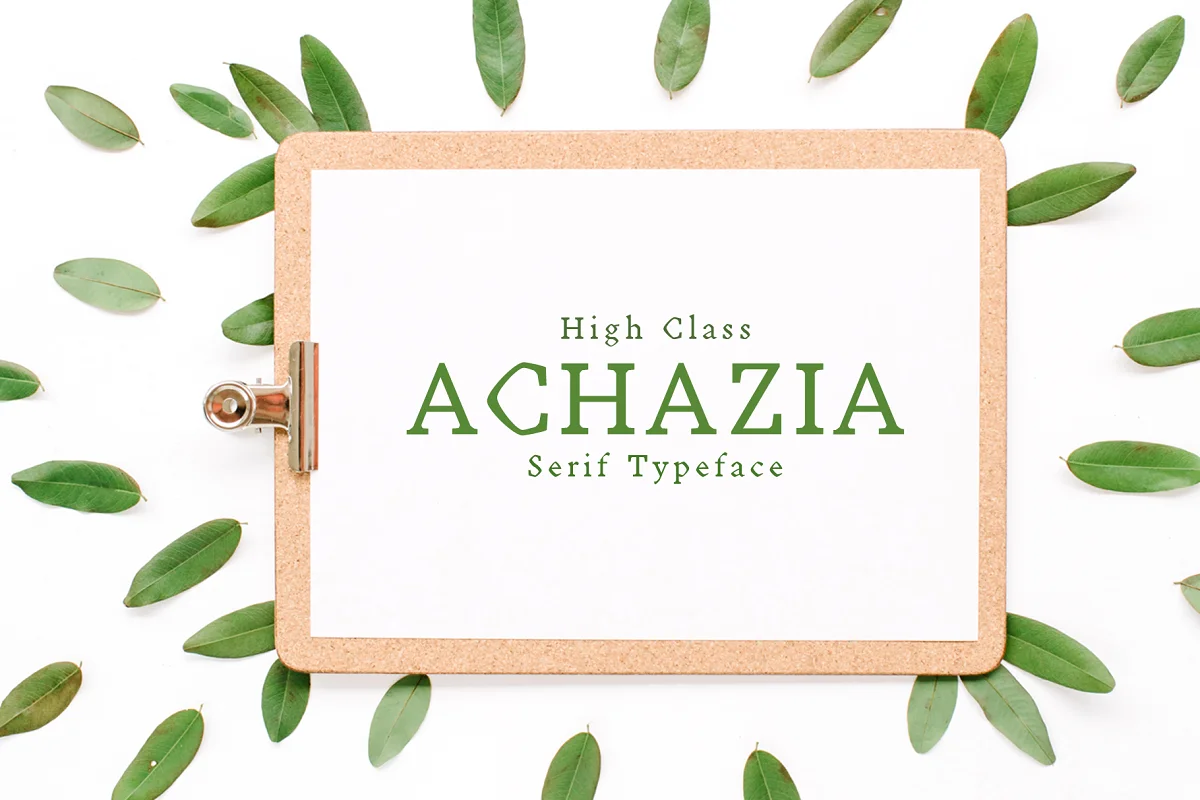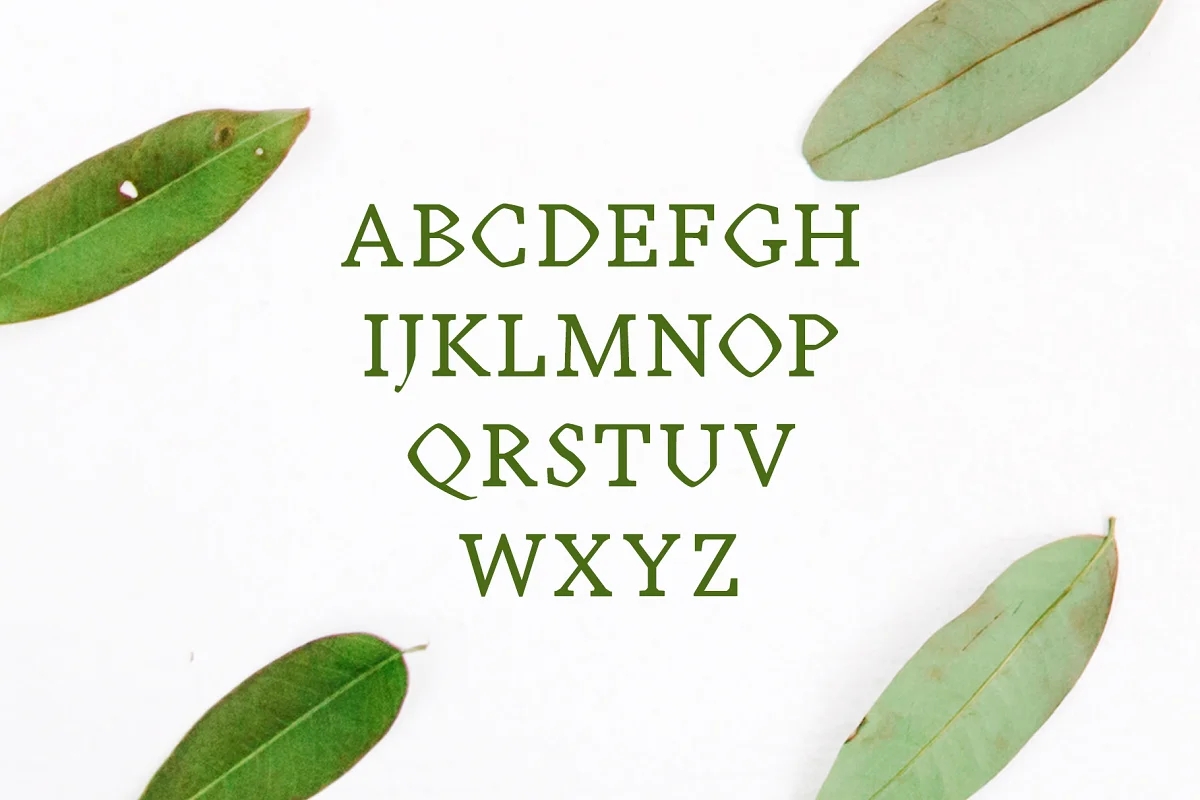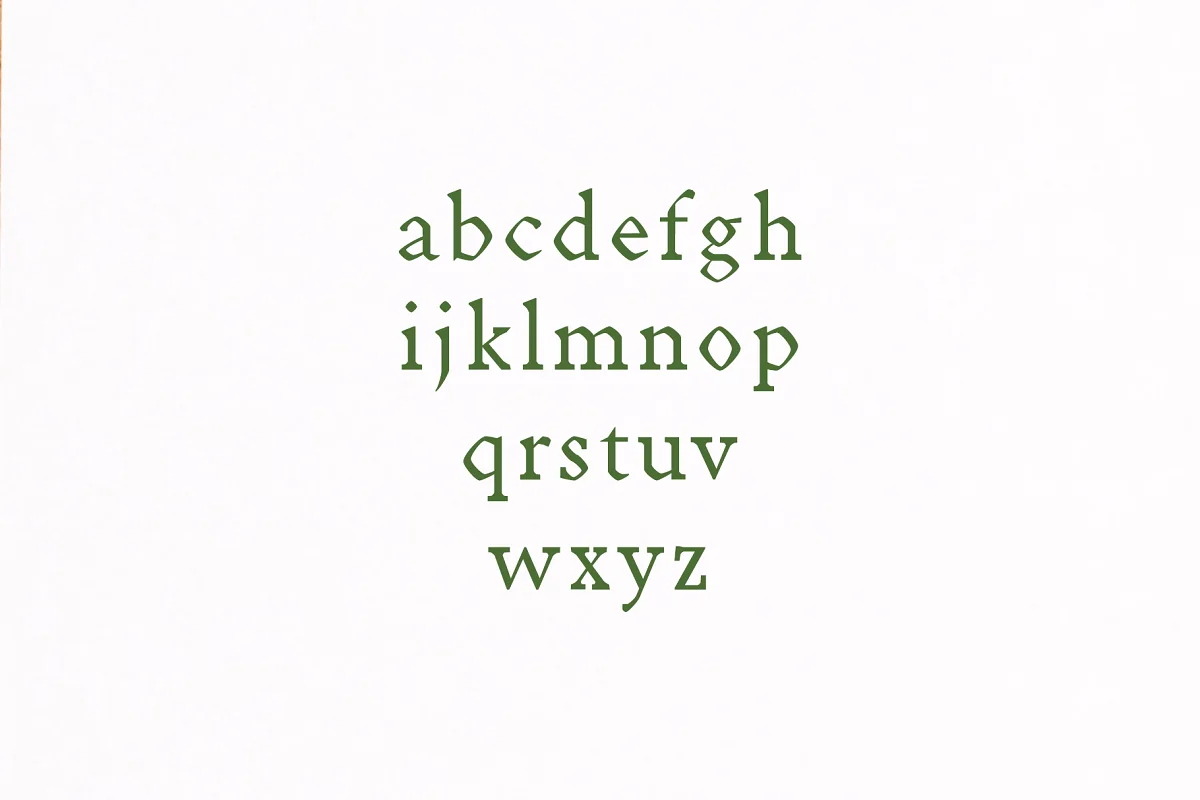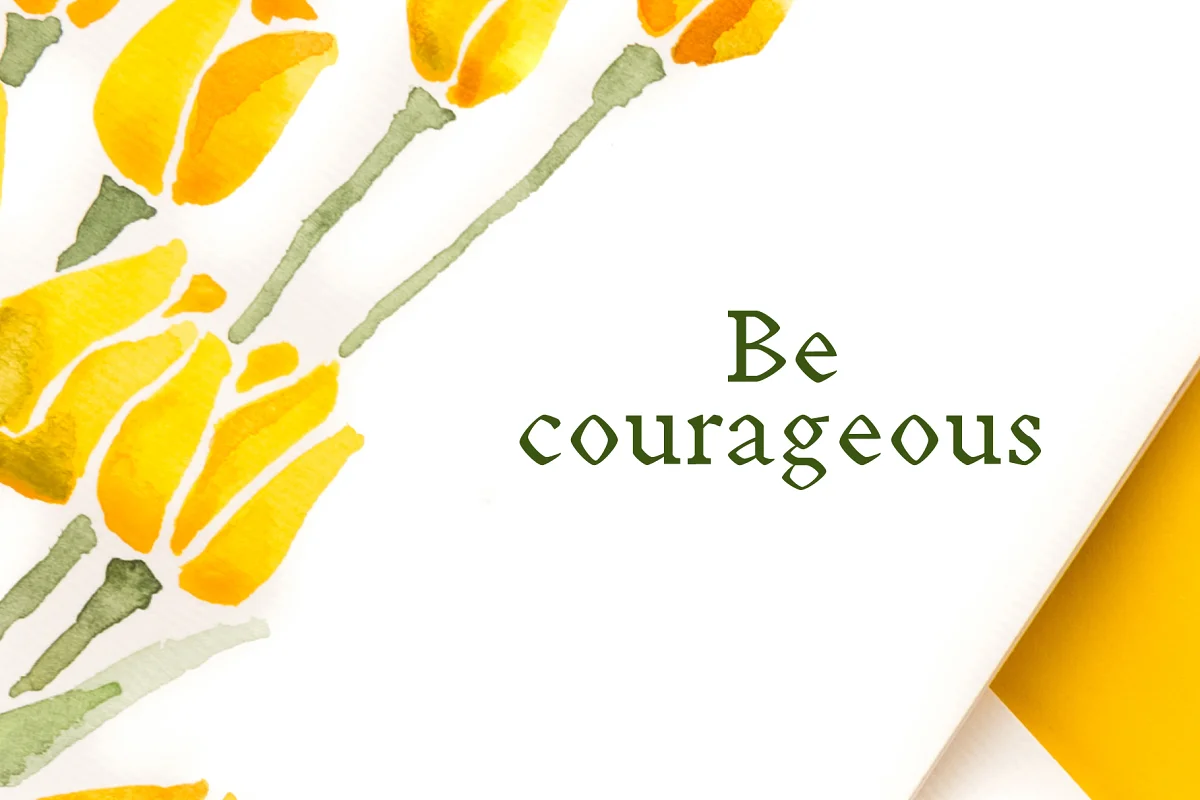
About the Achazia Serif Font
Achazia Serif Premium Font Family is a decorative serif font family, which contains 4 weights and It features a unique and modern serif look and feels. Perfect for gorgeous logos, titles, web layouts, and branding.
It looks gorgeous in all caps with a wide-set spacing if you want to try a classy look, or beautiful on its own in capital and lowercase letters for something completely timeless.
- Font Weight: Regular, Medium, Distorted and Bold
Achazia Font Features:
- Uppercase Multilingual Letters
- Lowercase Multilingual Letters
- Numbers & Punctuation
- Non-English Characters ( Latin Extended-A )